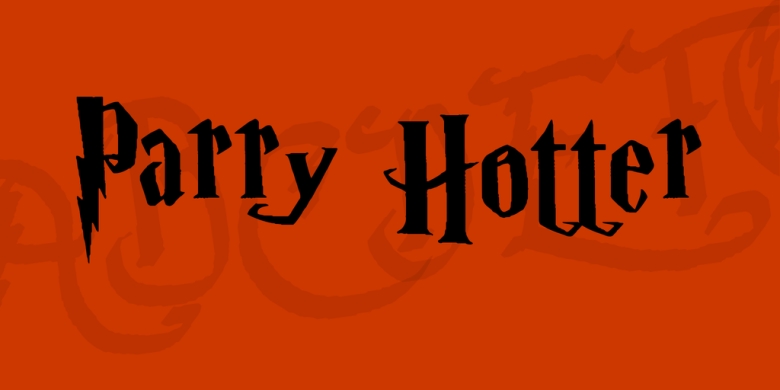
Parry Hotter Font
Parry Hotter is a high quality Blackletter font that is designed by anke-art and is available for free download and personal use. The free version provides all uppercase and lowercase letters and a few special characters too.